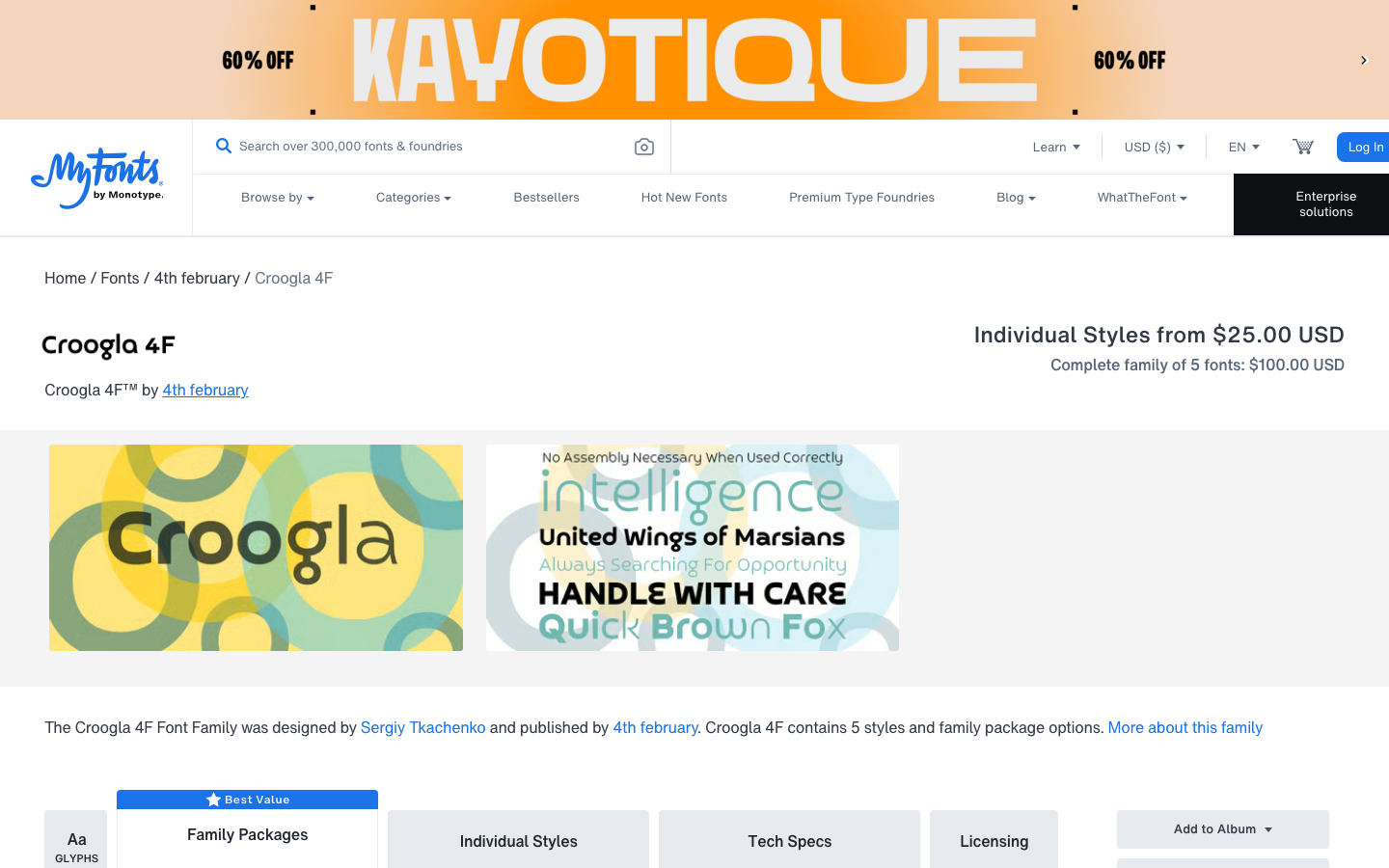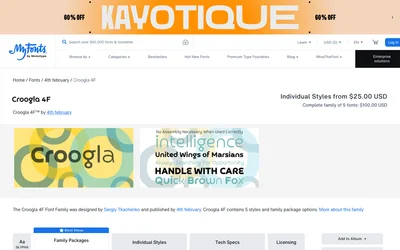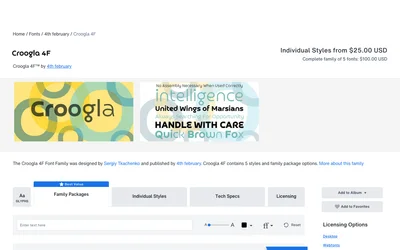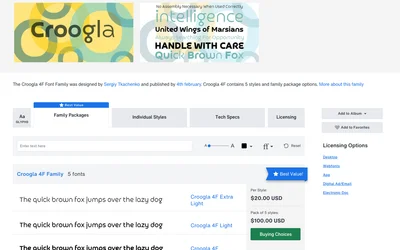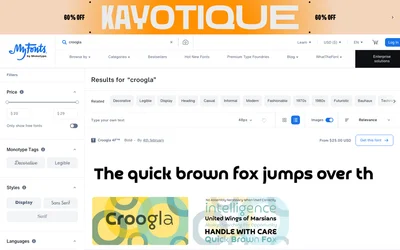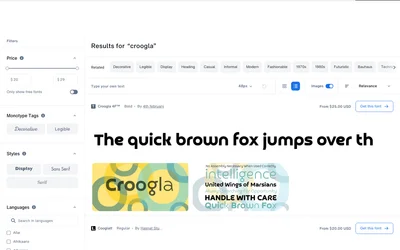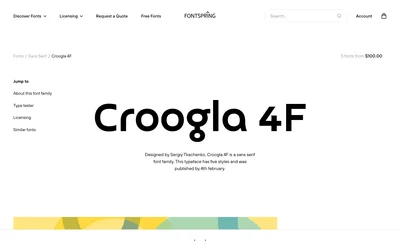
About Croogla
- Foundry
- 4th february
- Classification
- display
- Style
- geometric
Croogla (full name Croogla 4F) is a geometric display typeface designed by Sergiy Tkachenko and published by the 4th february type foundry. The design features bold, clean geometric letterforms with a modern, technology-forward aesthetic suited to headlines, logos, and branding applications.
History and Design
Sergiy Tkachenko created Croogla as a geometric sans-serif with pronounced display qualities. The typeface builds its visual identity on strong geometric principles — circular bowls, consistent stroke weights, and mathematically-informed proportions — while adding enough character to serve as a distinctive branding tool rather than a neutral text face.
The design supports both Latin and Cyrillic scripts, providing consistent geometric character across both writing systems. The family spans five weights from ExtraLight through Bold, offering range for headline hierarchies and display compositions.
Technical Characteristics
- Strong geometric construction: Bold, clean forms built from basic geometric shapes
- Display optimization: Proportions and details designed for large-size impact
- Bilingual support: Latin and Cyrillic with consistent design language
- Five weight range: ExtraLight to Bold for tonal variation
- Modern personality: Contemporary geometric aesthetic for forward-looking brands
Use Cases
Croogla works well for technology and modern branding:
- Technology branding: Geometric precision for tech companies and startups
- Logo design: Distinctive letterforms for memorable brand marks
- Headline typography: Bold display presence for digital and print media
- Gaming and entertainment: Futuristic character for interactive media
- Sports and fitness branding: Geometric strength for athletic identities